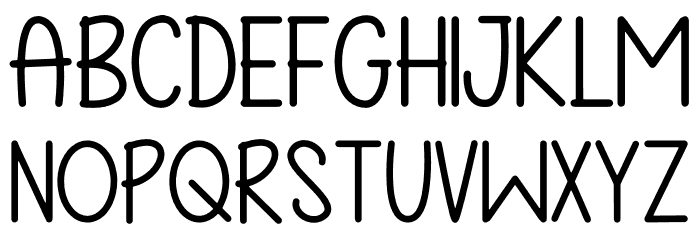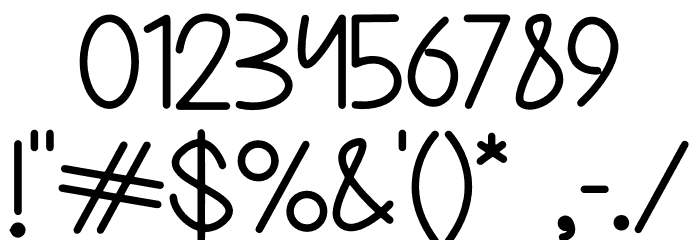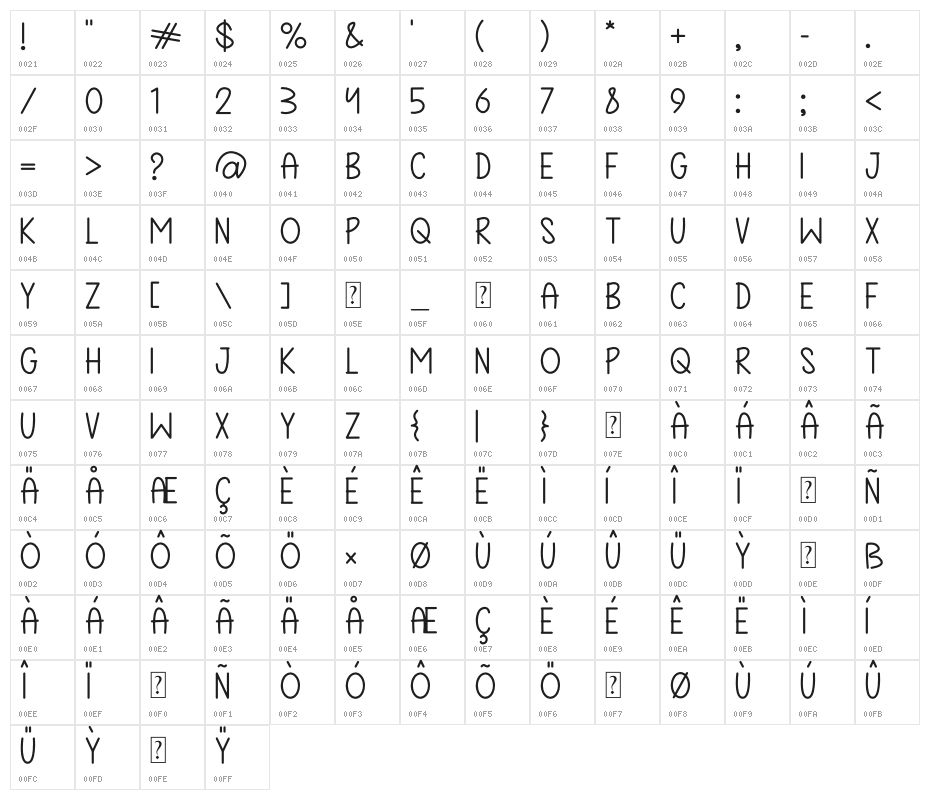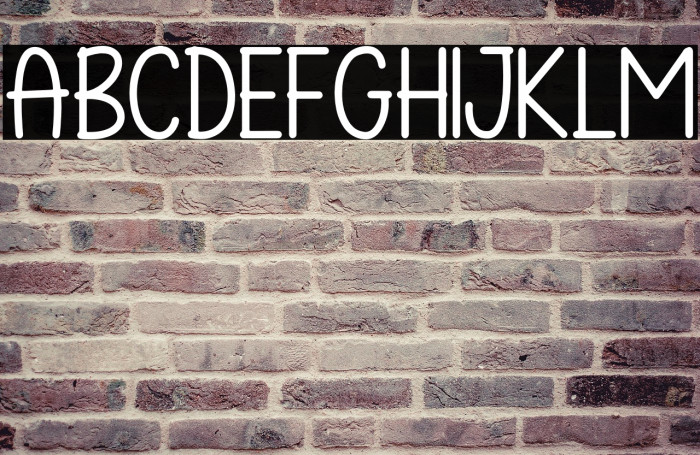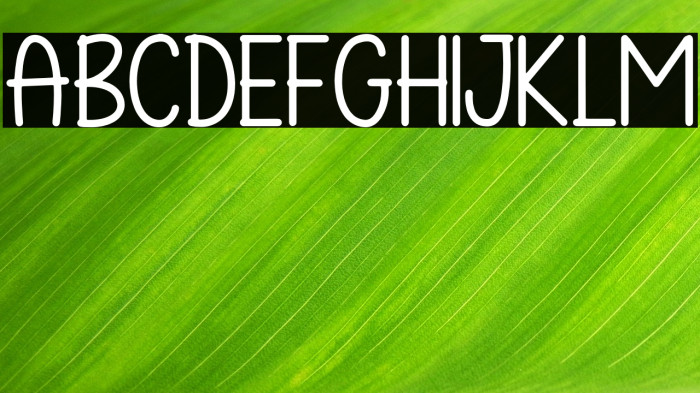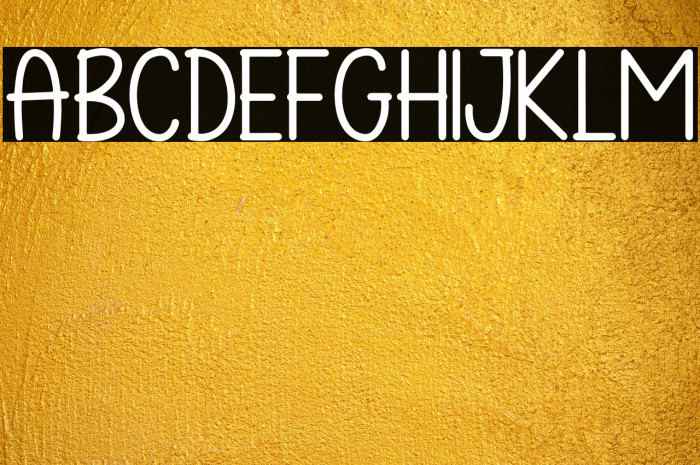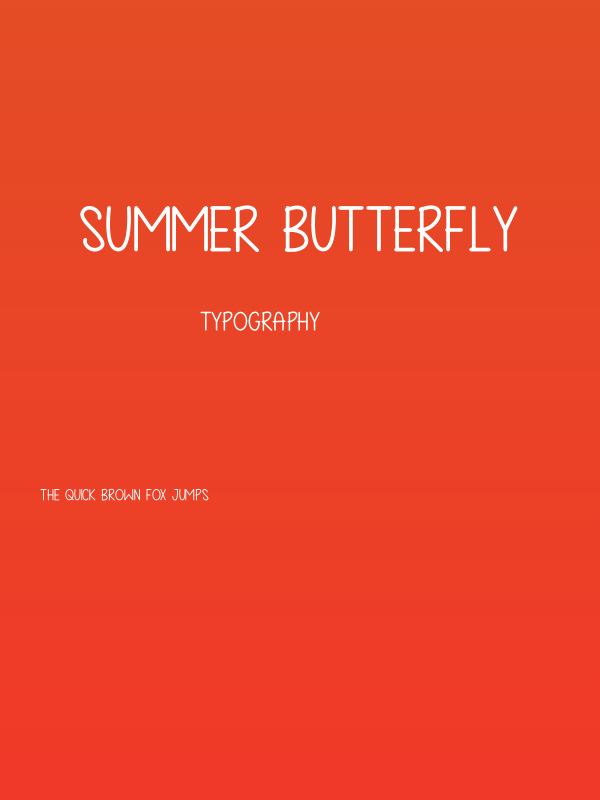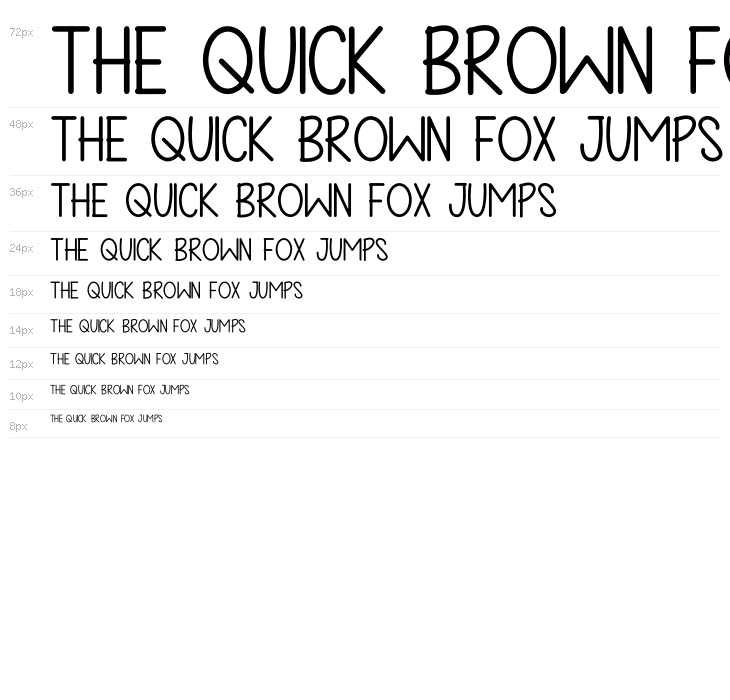
Summer Butterfly Font
This playful and whimsical font features rounded, hand-drawn characters that exude a sense of fun and creativity. The letters are evenly spaced with a consistent stroke width, giving it a clean and approachable appearance. Its casual style makes it ideal for projects that require a friendly and informal touch. The font includes a full set of uppercase and lowercase letters, numbers, and a variety of special characters, ensuring versatility for different design needs. Its simplicity and charm make it suitable for children's books, greeting cards, and playful branding projects.
A playful, hand-drawn font with rounded characters and a whimsical style.
- Font: Summer Butterfly
- Proposed Projects: Ideal for children's books, greeting cards, playful branding, and casual invitations.
- Category: Handwritten
- Overall Style: Playful
- Use Case: Headlines, Logos, Informal Text